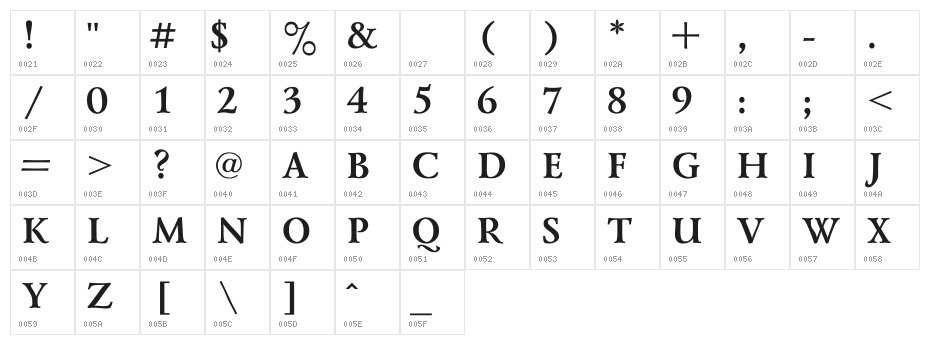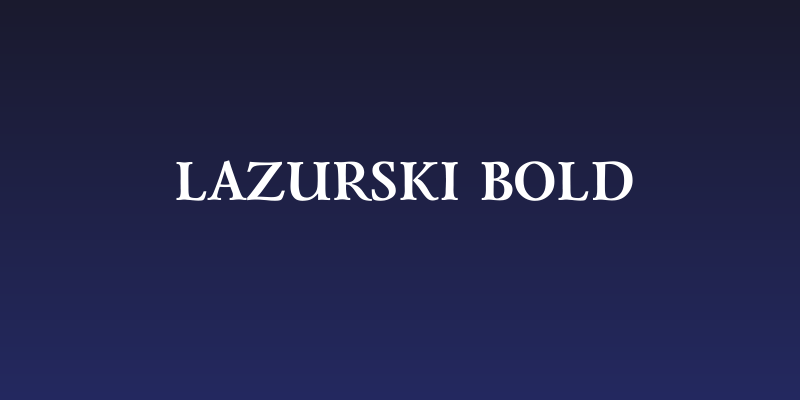
Lazurski Bold Font
Lazurski Bold Description
This font features a classic serif style with a bold and authoritative presence. The characters are well-defined with strong, thick strokes that convey a sense of tradition and reliability. The serifs are pronounced, adding a touch of elegance and sophistication. The uppercase letters are stately and commanding, while the lowercase letters maintain a harmonious balance. The numerals are clear and consistent, making them easily readable. Special characters are thoughtfully designed, maintaining the overall aesthetic of the font. This font is ideal for projects that require a formal and professional appearance.
| Proposed Projects | Ideal for formal documents, book covers, branding, and editorial design. |